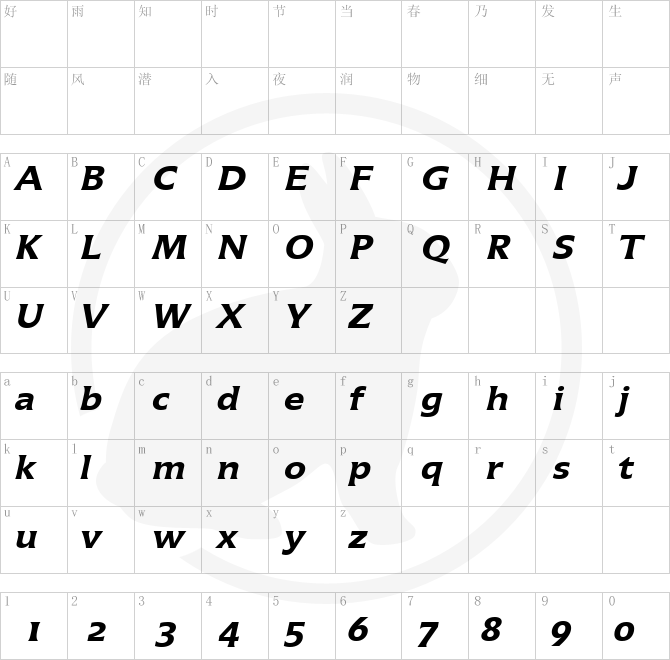
Icone-LT-Bold-Italic-OsF.ttf is a very beautiful artistic font, Icone-LT-Bold-Italic-OsF.ttf is widely used in the design and printing of various books and pictures,Icone-LT-Bold-Italic-OsF.ttf has a strong visual impact,Icone-LT-Bold-Italic-OsF.ttf is a commonly used font in newspapers, magazines and books, and is used in posters, e-commerce Poster design, store design, logo design, font design and other fields.Icone-LT-Bold-Italic-OsF.